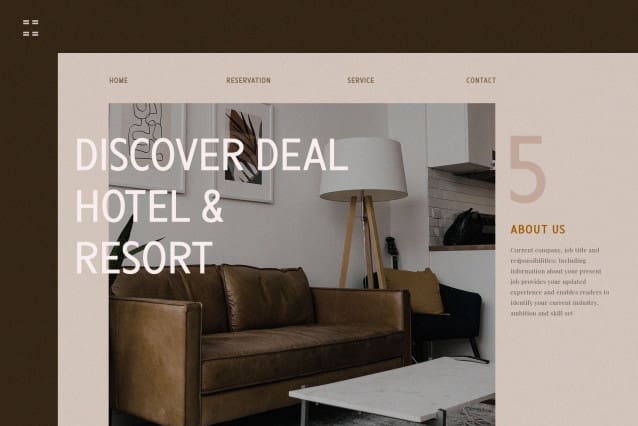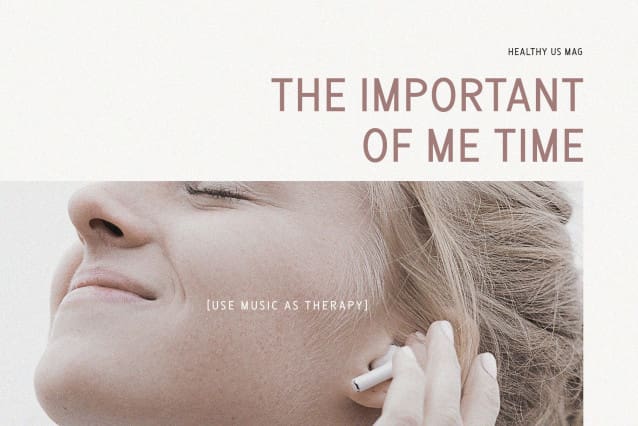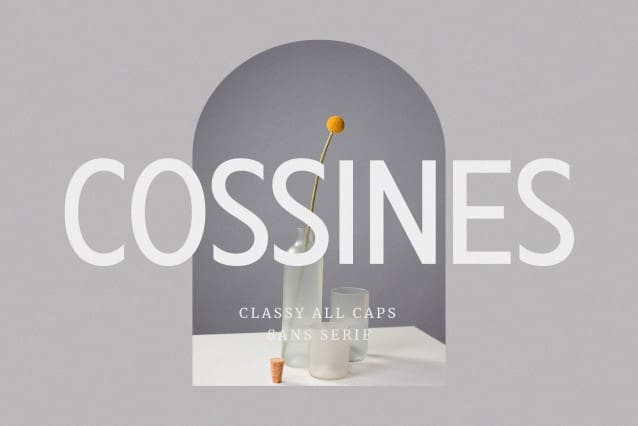
Cossines Font
Cossines Font is a modern and classy typeface, best used as a display for headings, logos, branding, magazines, product packaging and invitations. Cossines come with clean lines and smooth curves give any project an extra touch of class.